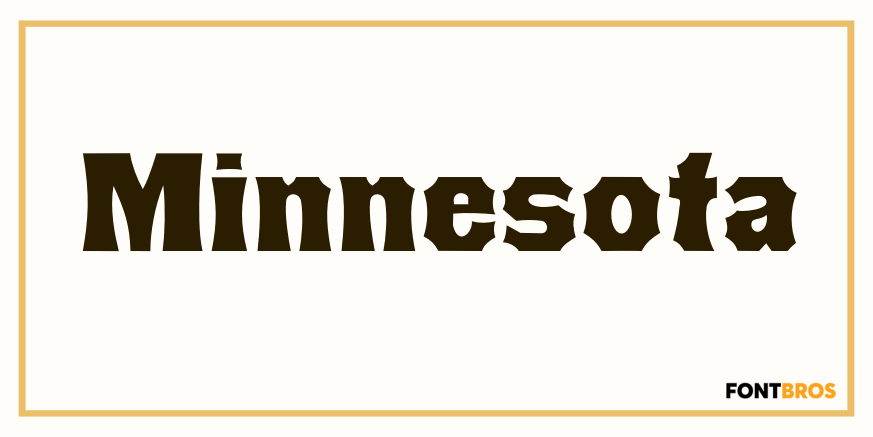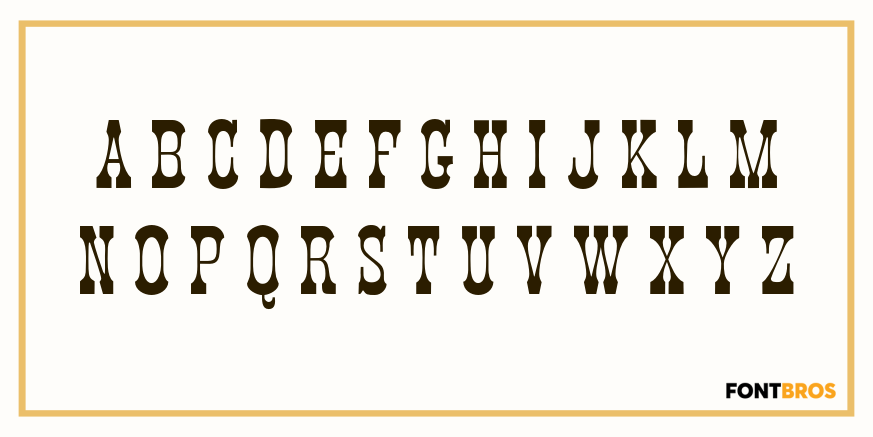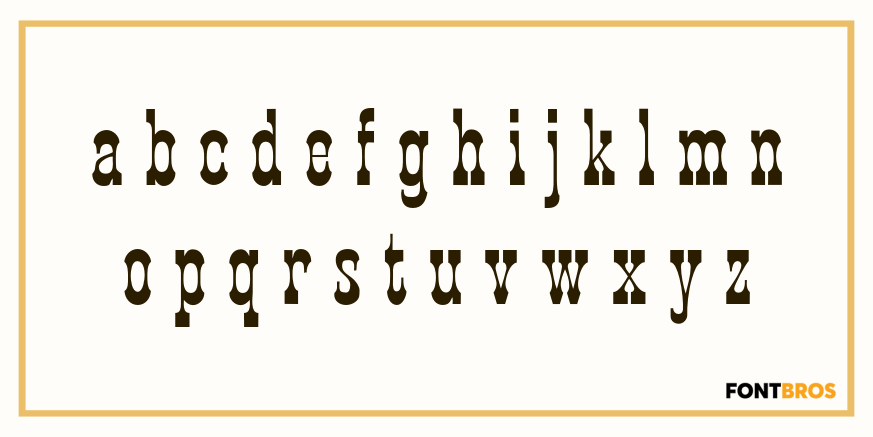
Coney Island Normal
This is based on a mid-Victorian Connor's foundry font known initially as Manhattan.
One of several old faces known in America as "French Clarendons", in Europe as "Italians", and, wait for it, in France as "American".
Coney Island Normal by Solotype